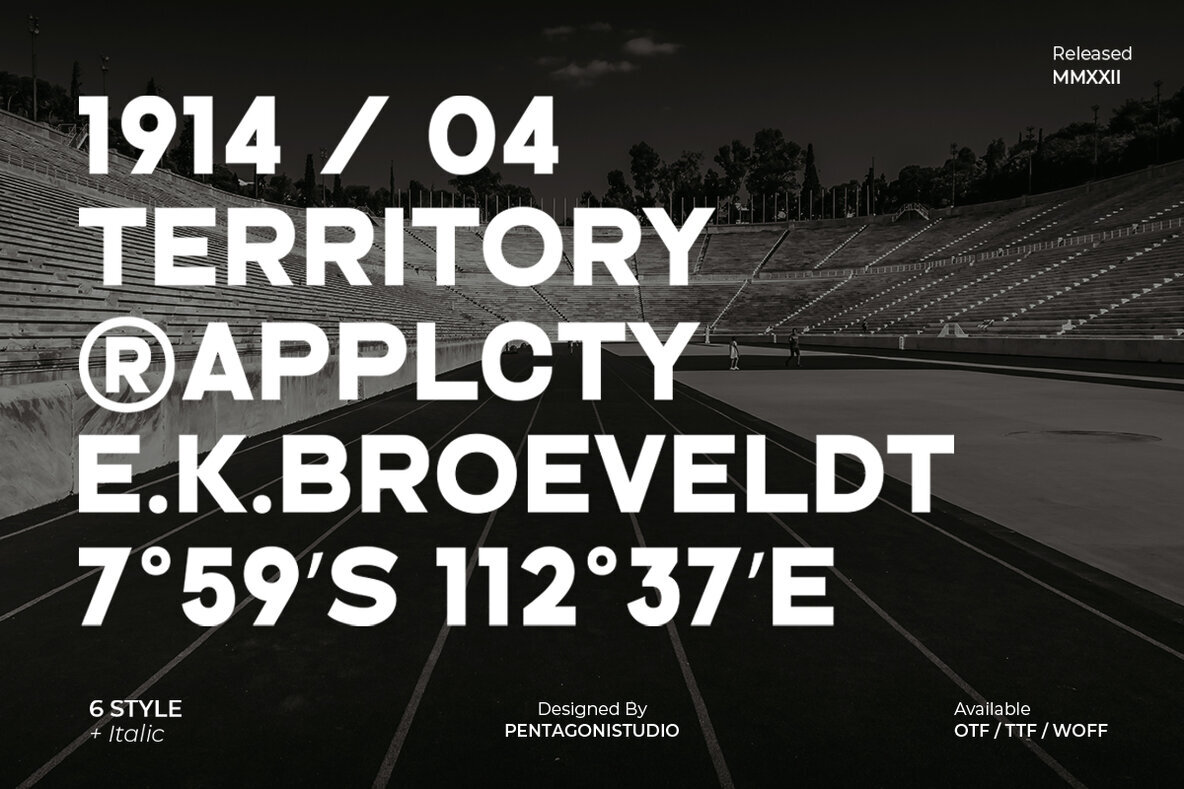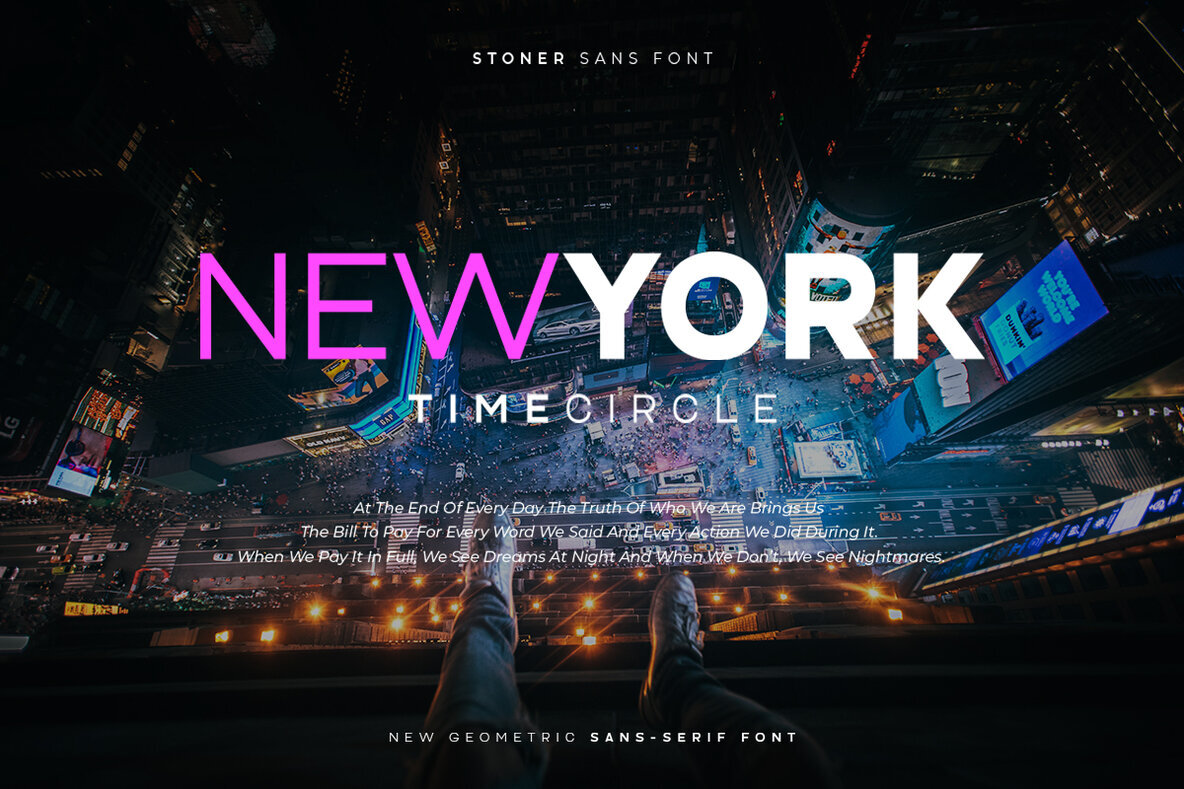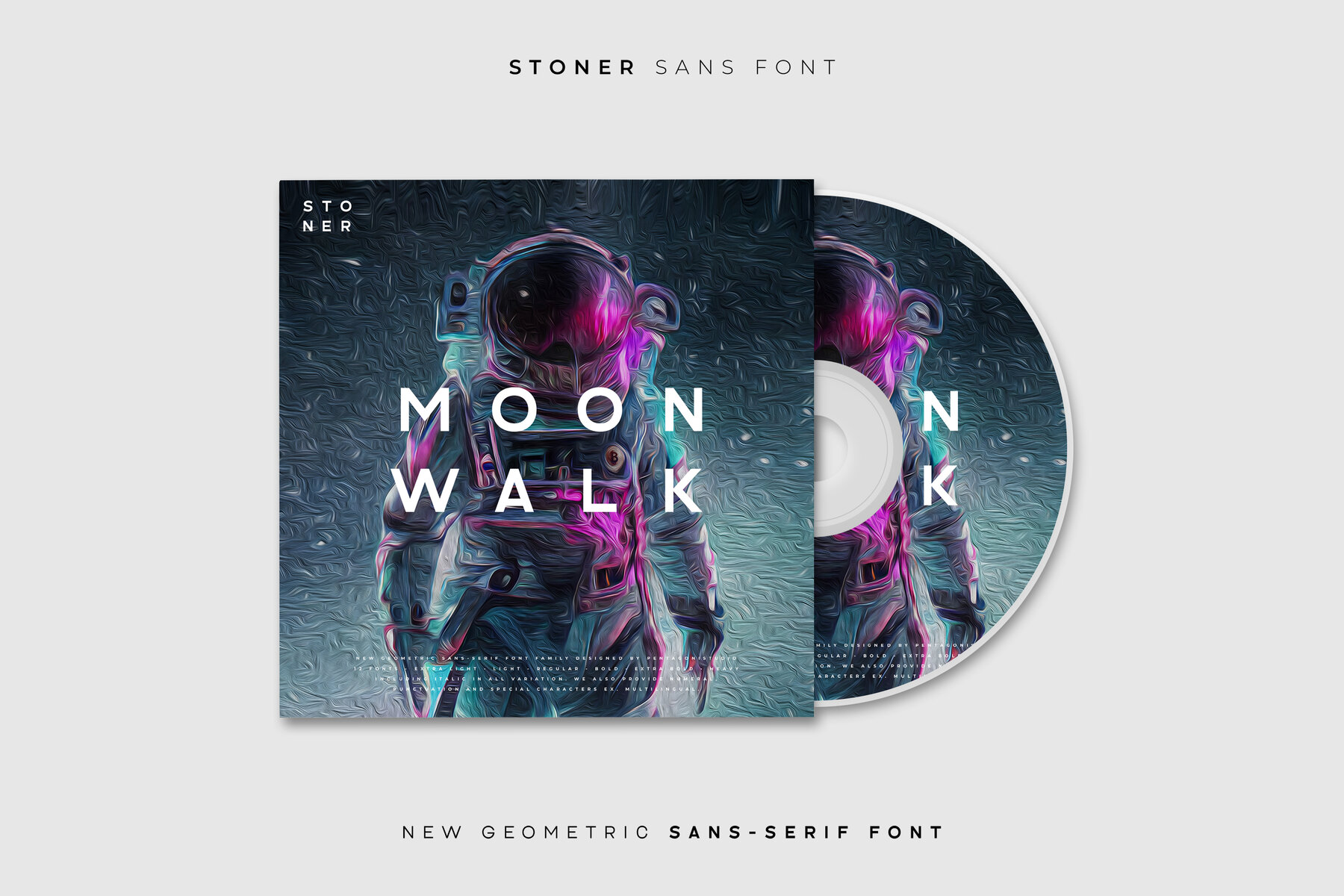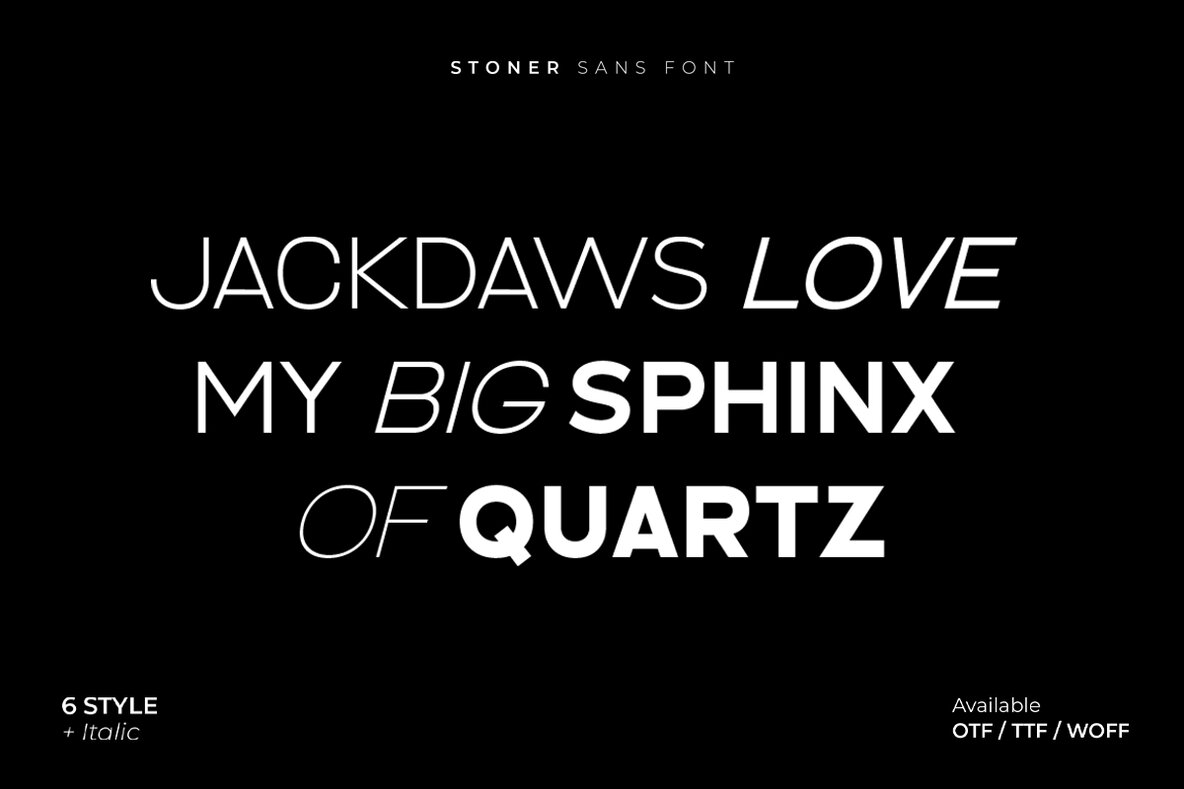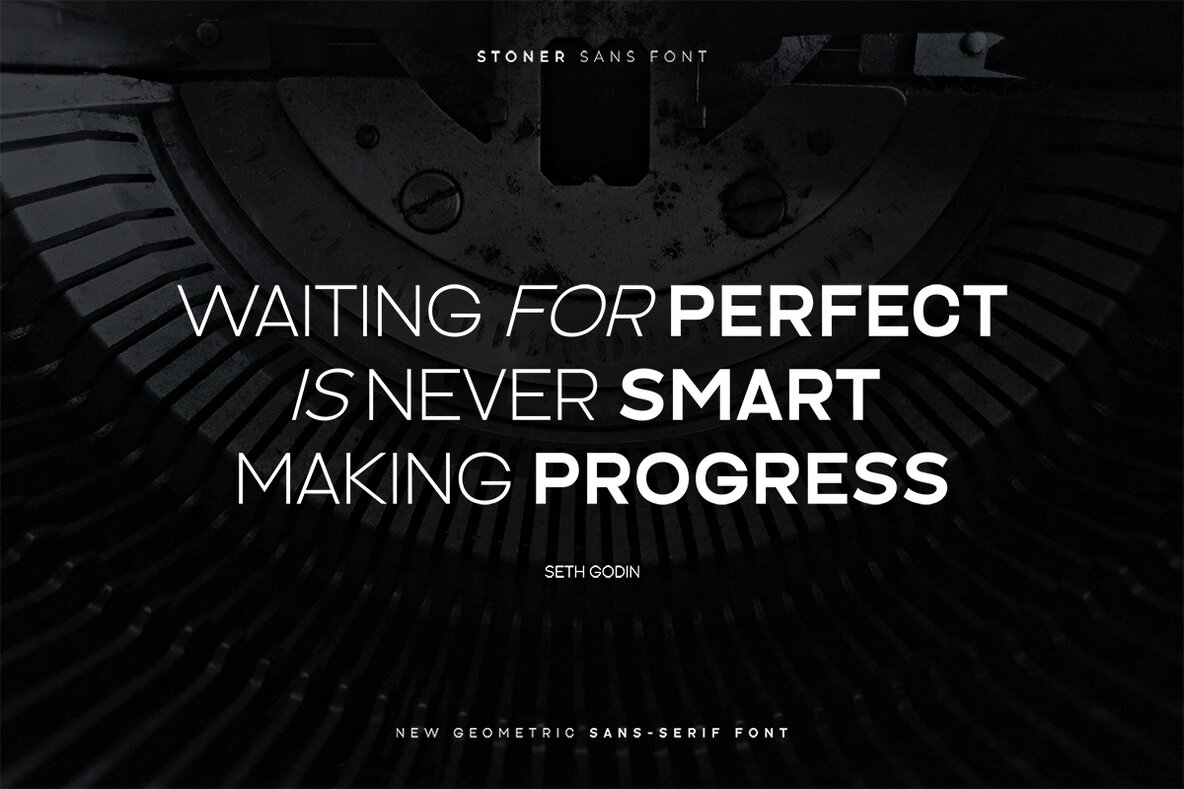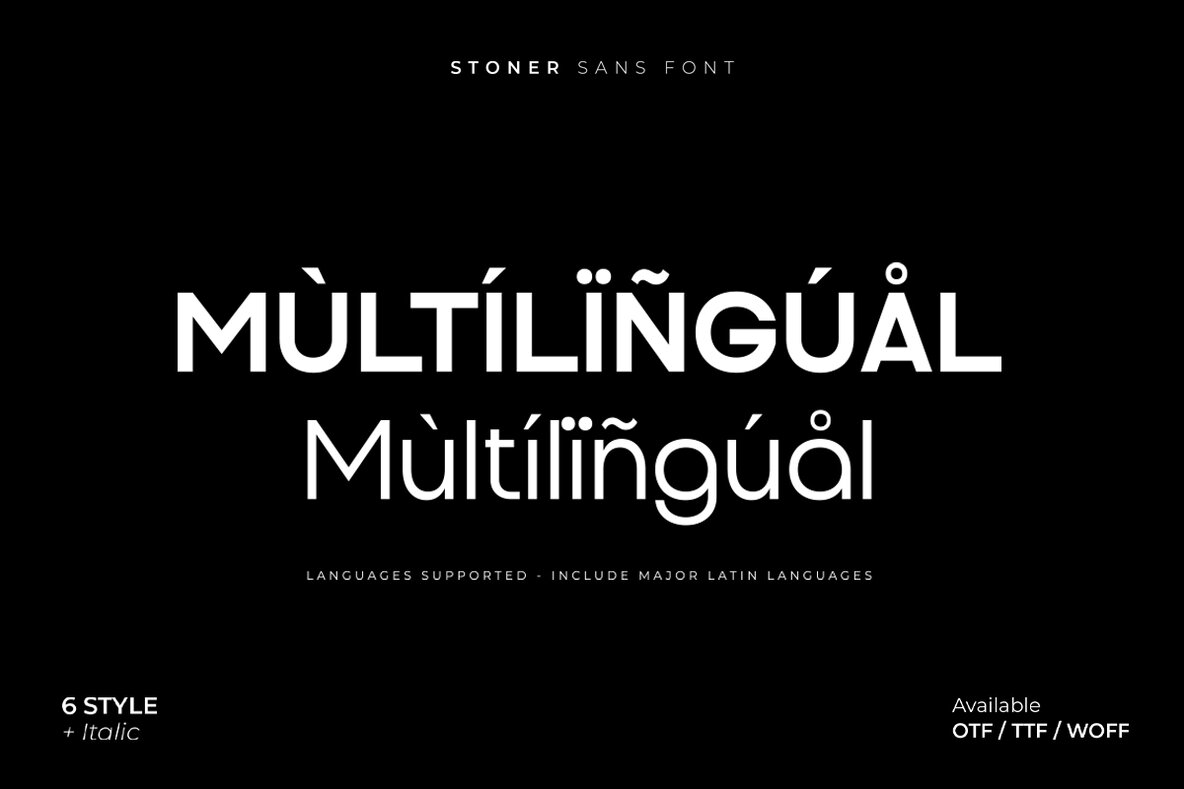
Stoner Font
Stoner offers a fresh take on geometric sans serif fonts, blending modern style with elegant design. Its structure, influenced by contemporary aesthetics, makes it an excellent choice for both digital and print projects. The Stoner font family offers a variety of italic weights, providing versatility and adaptability. Users can access these fonts without needing special software, as they integrate smoothly into standard applications. Note, however, the desktop license restricts certain uses, such as embedding in digital files or reselling on platforms. For broader licensing options, please inquire directly.Stoner: A New Geometric Sans Family